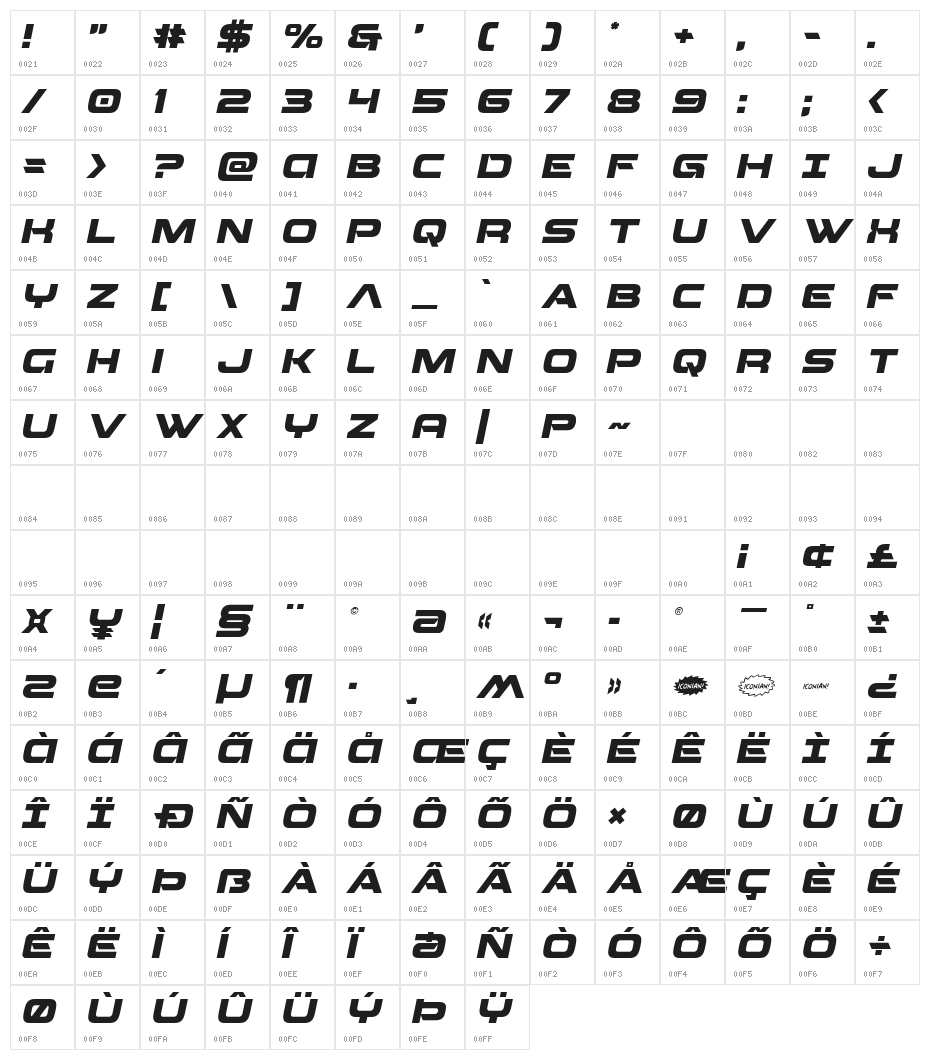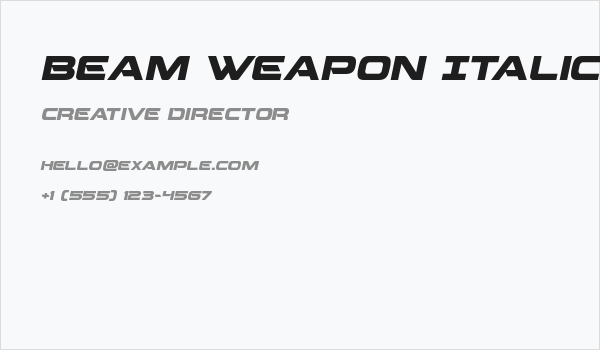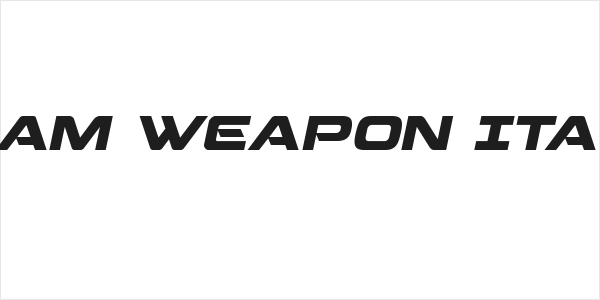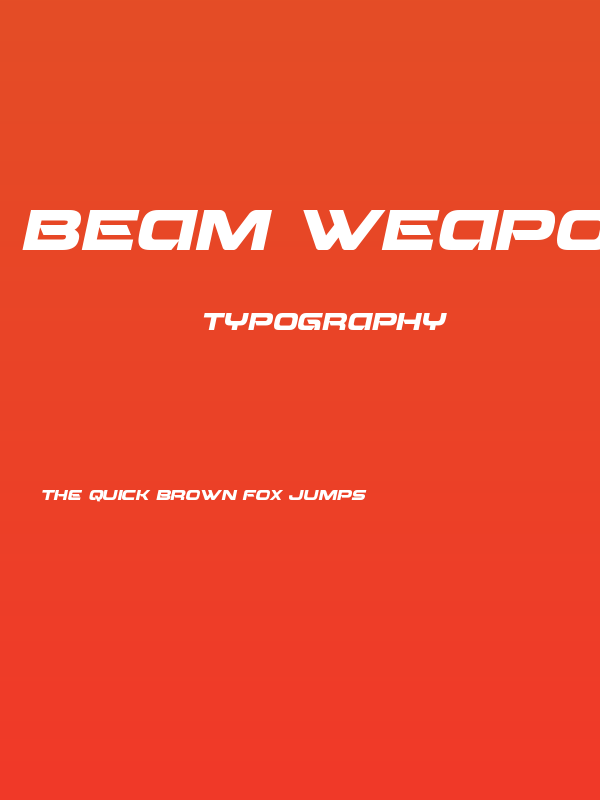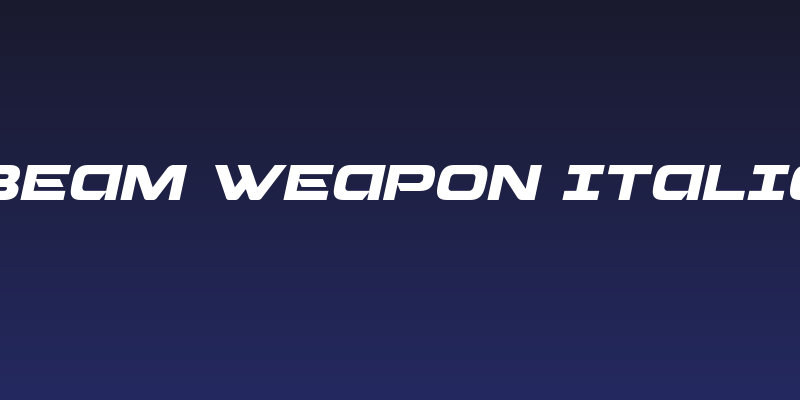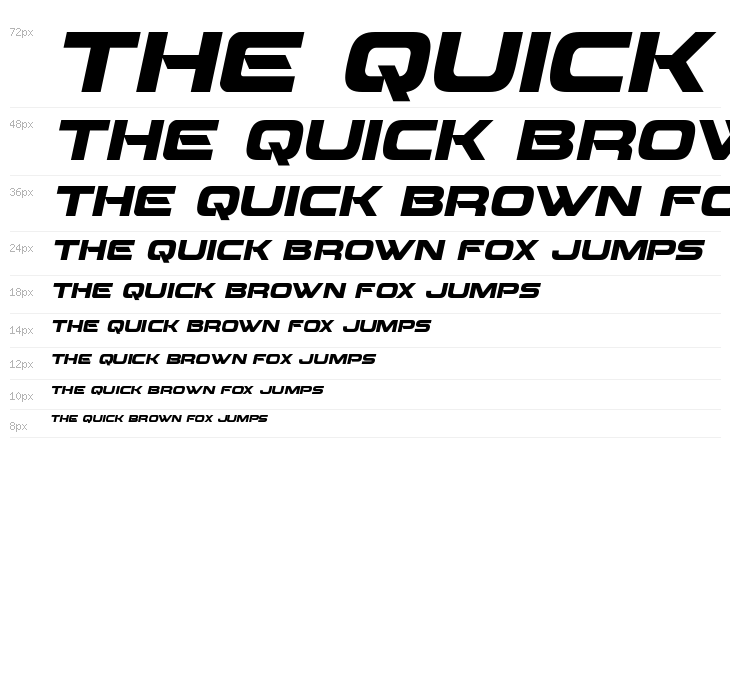
Beam Weapon Italic Font
Beam Weapon Italic Description
This font features a futuristic and dynamic design, characterized by its italicized and angular letterforms. The characters have a distinct slant, giving a sense of motion and speed. The bold strokes and geometric shapes contribute to a modern and edgy appearance. The font maintains a consistent weight throughout, with moderate spacing between characters that enhances readability while preserving its unique style. The numerals and special characters are designed to match the angular and bold aesthetic, making it suitable for a variety of applications where a contemporary and impactful look is desired.
| Proposed Projects | Ideal for sci-fi themed projects, video game titles, technology branding, and dynamic posters. |